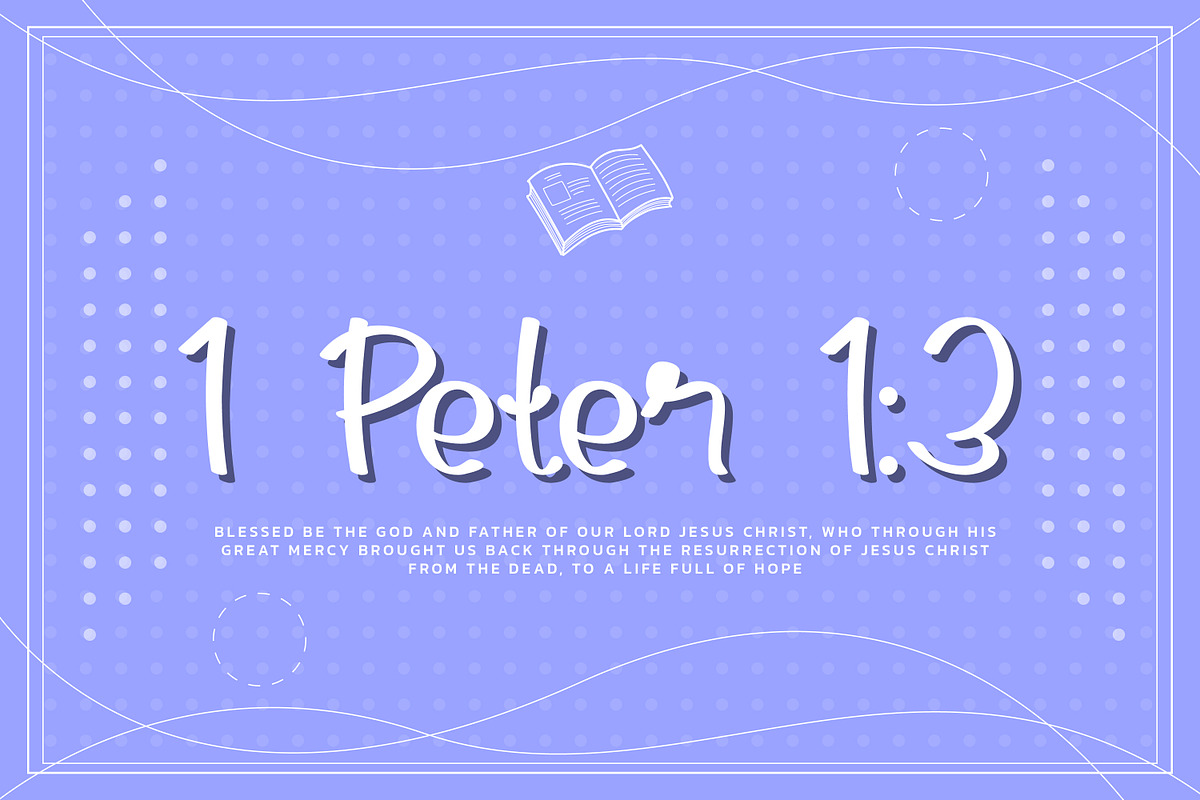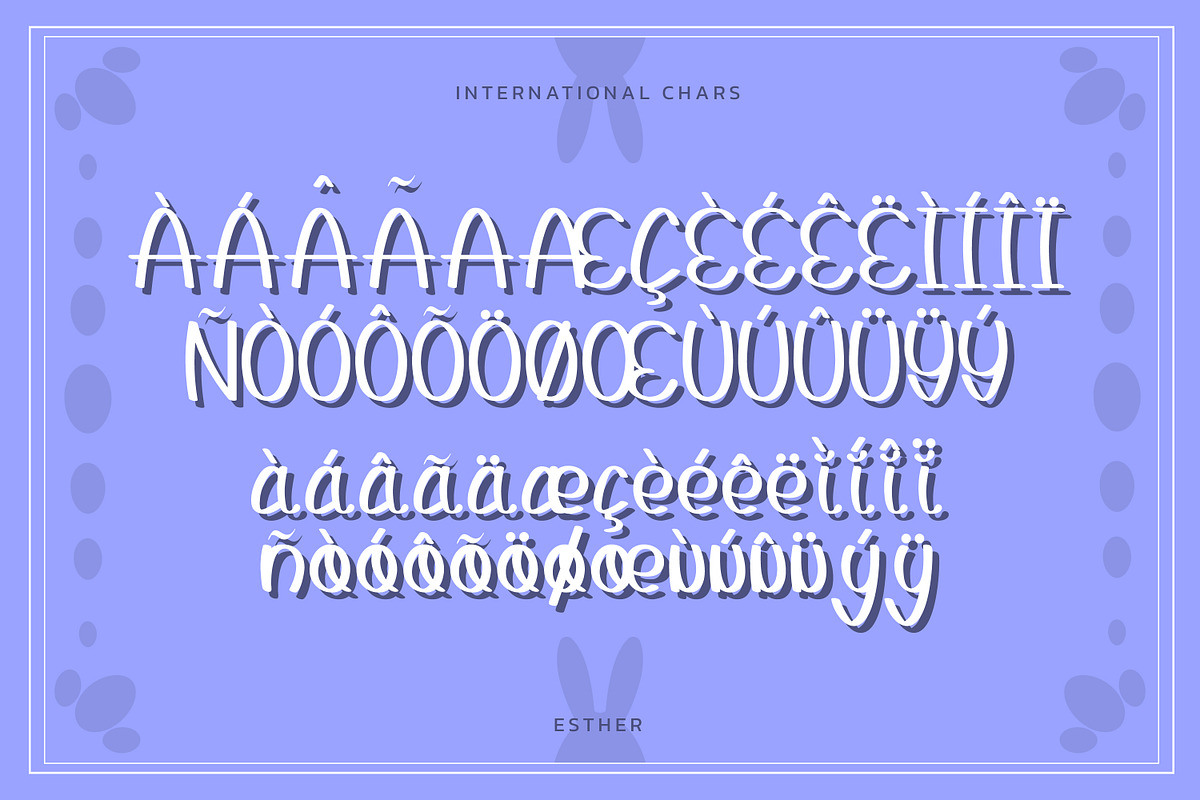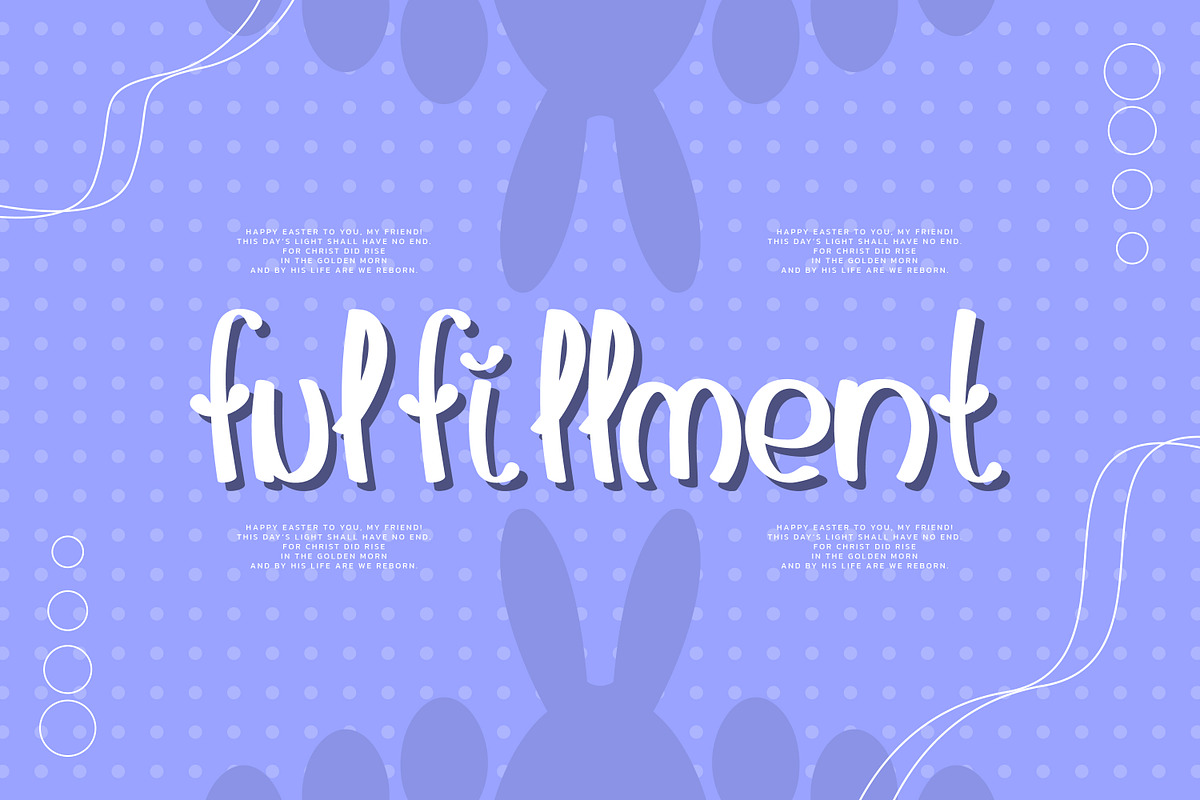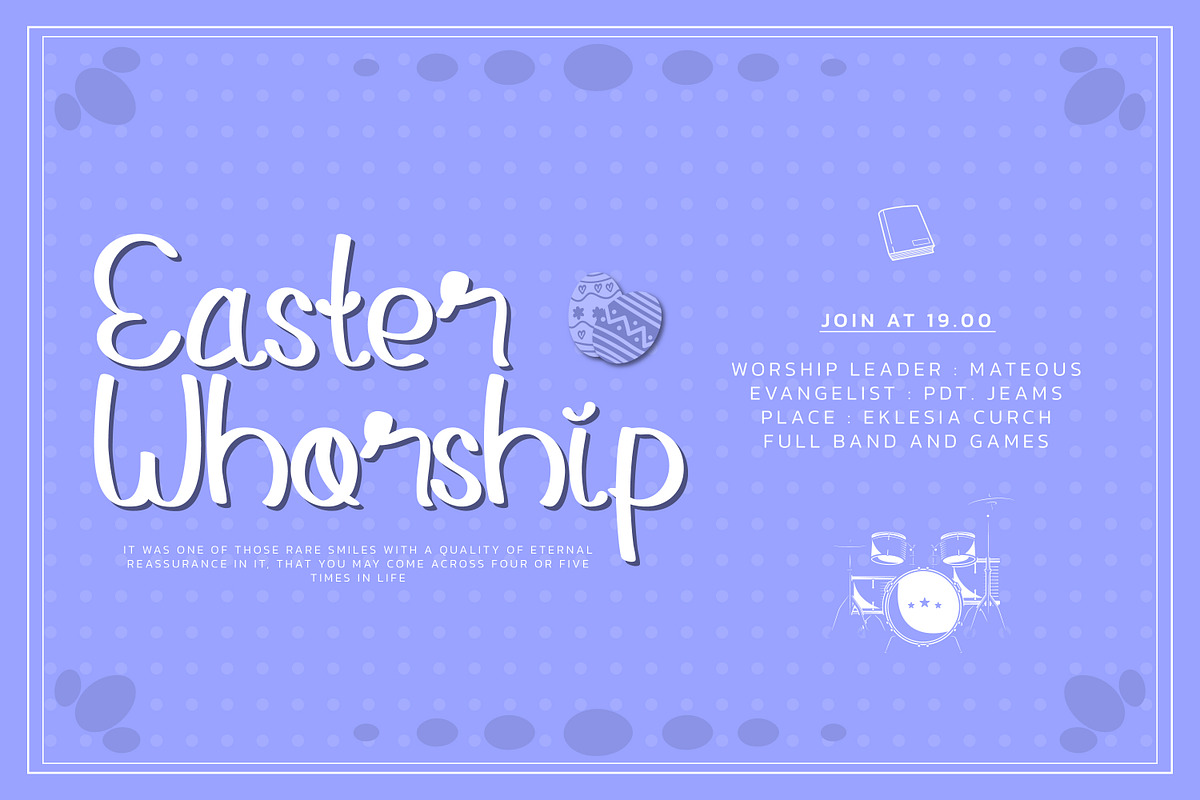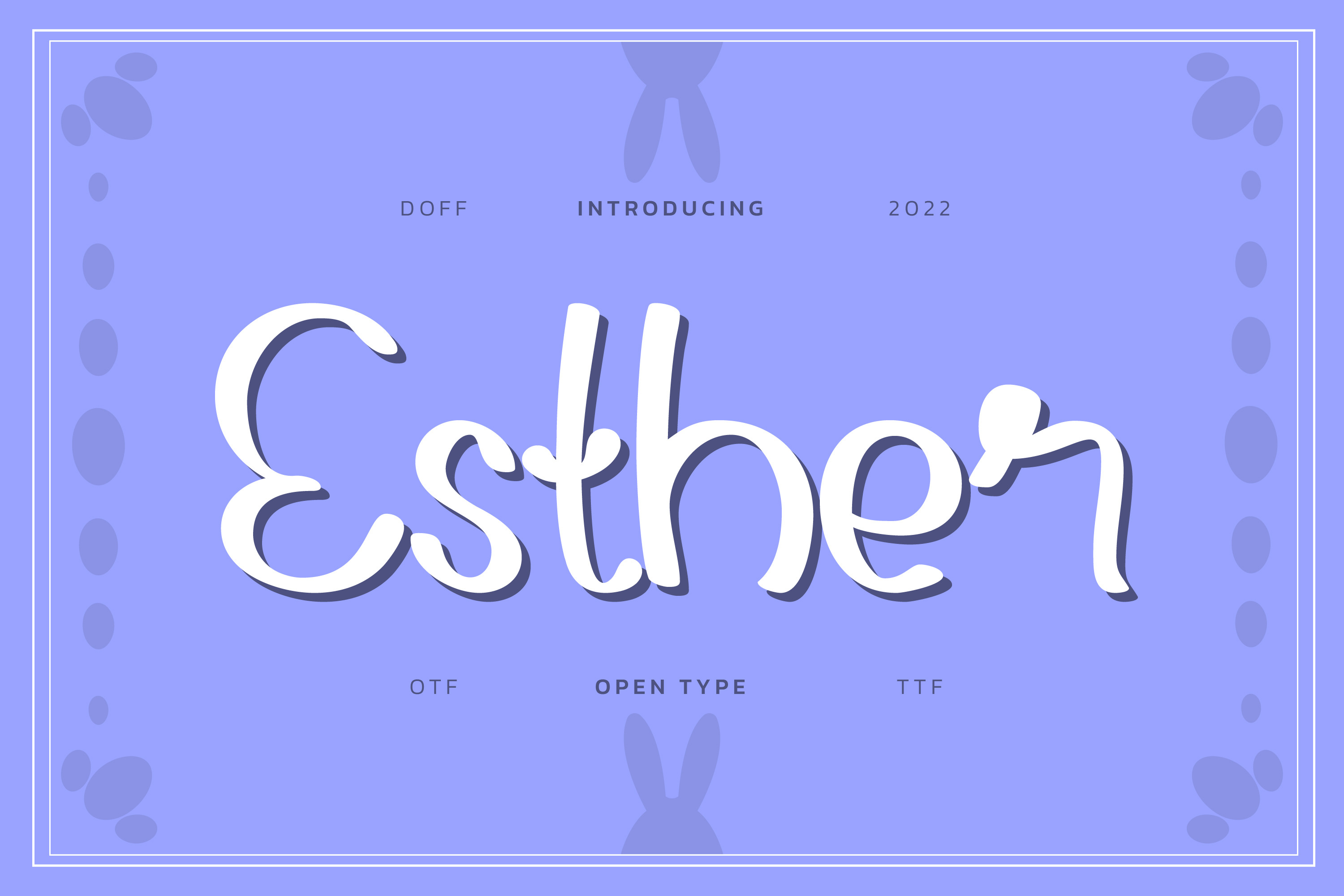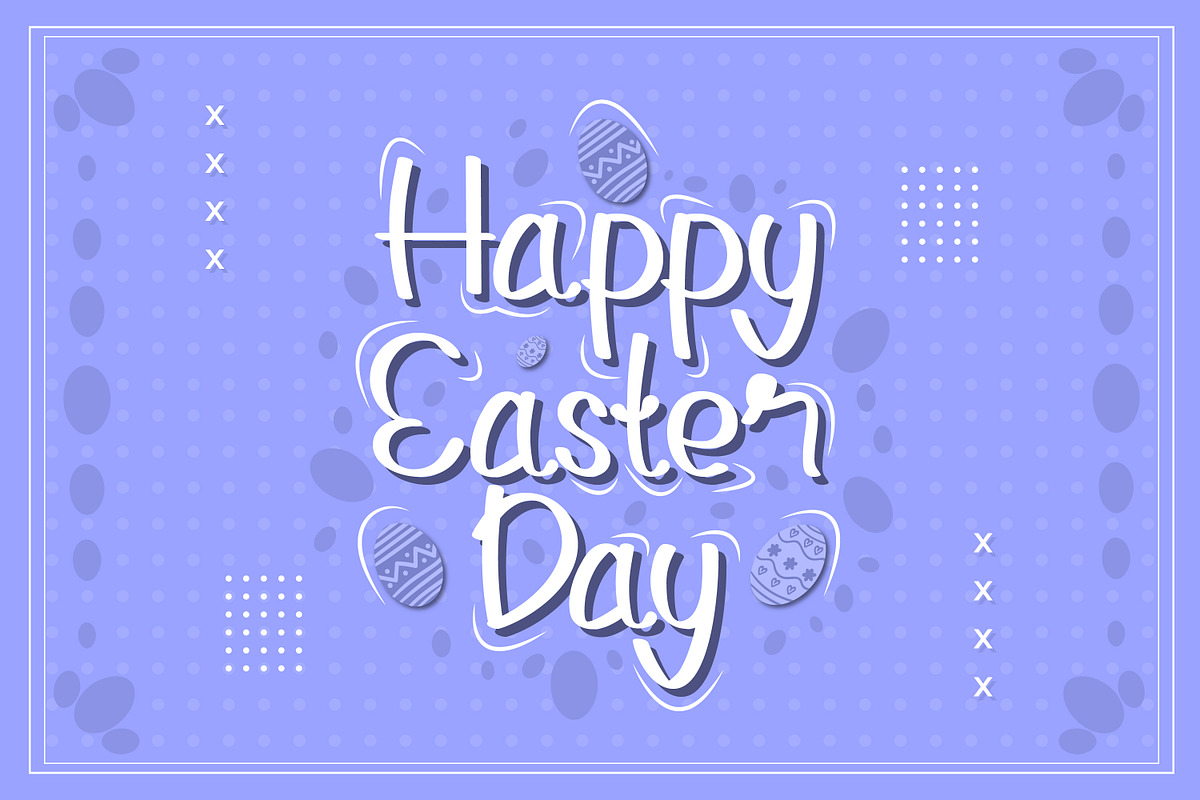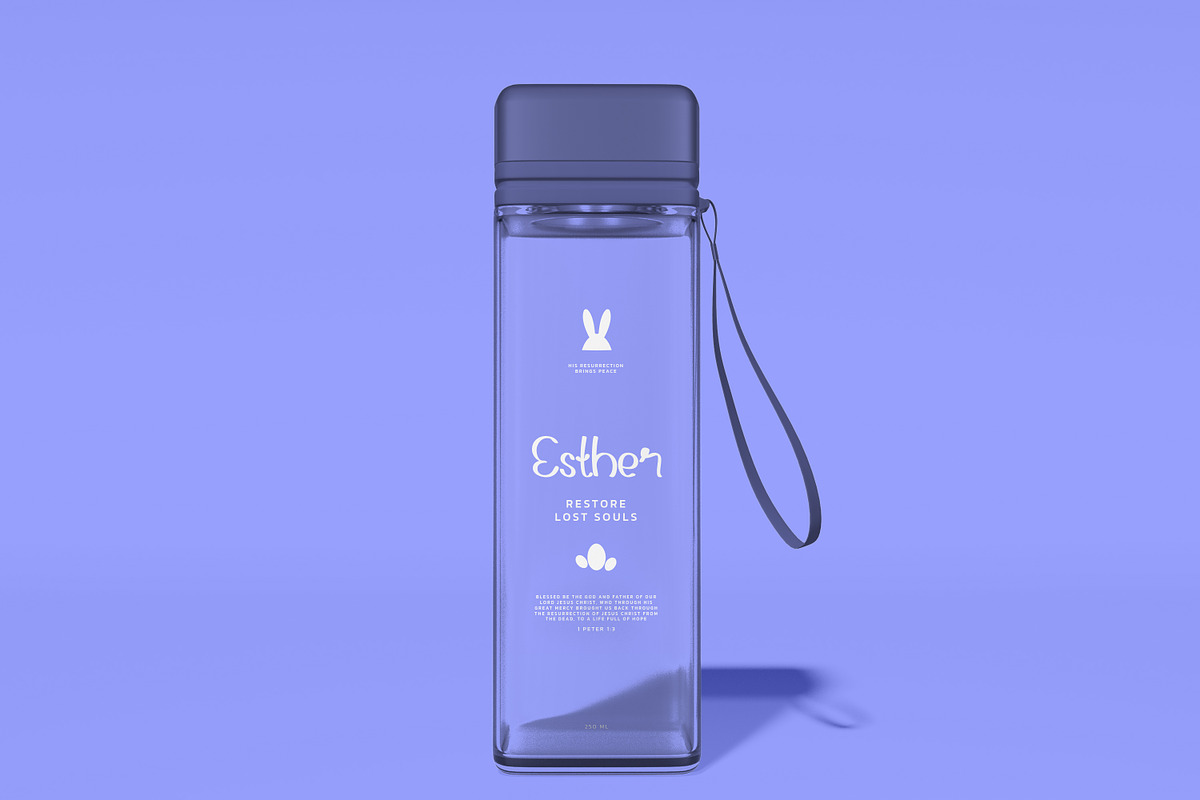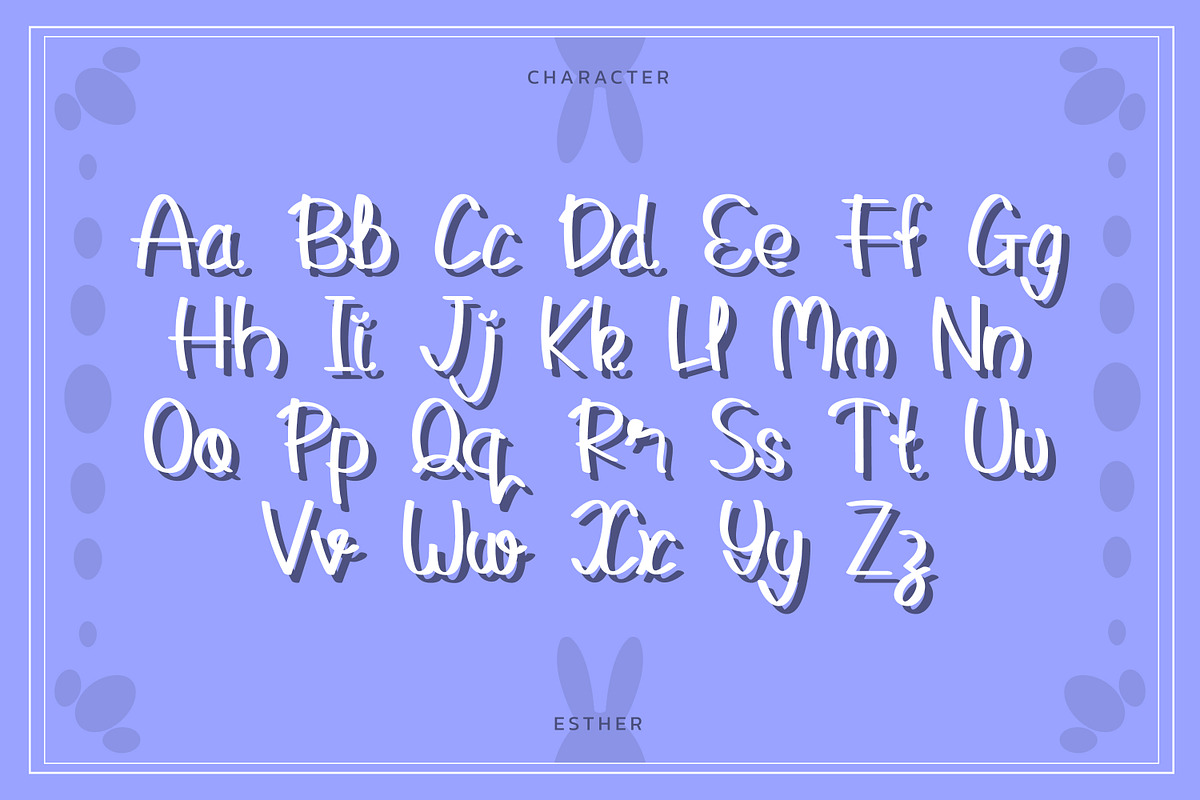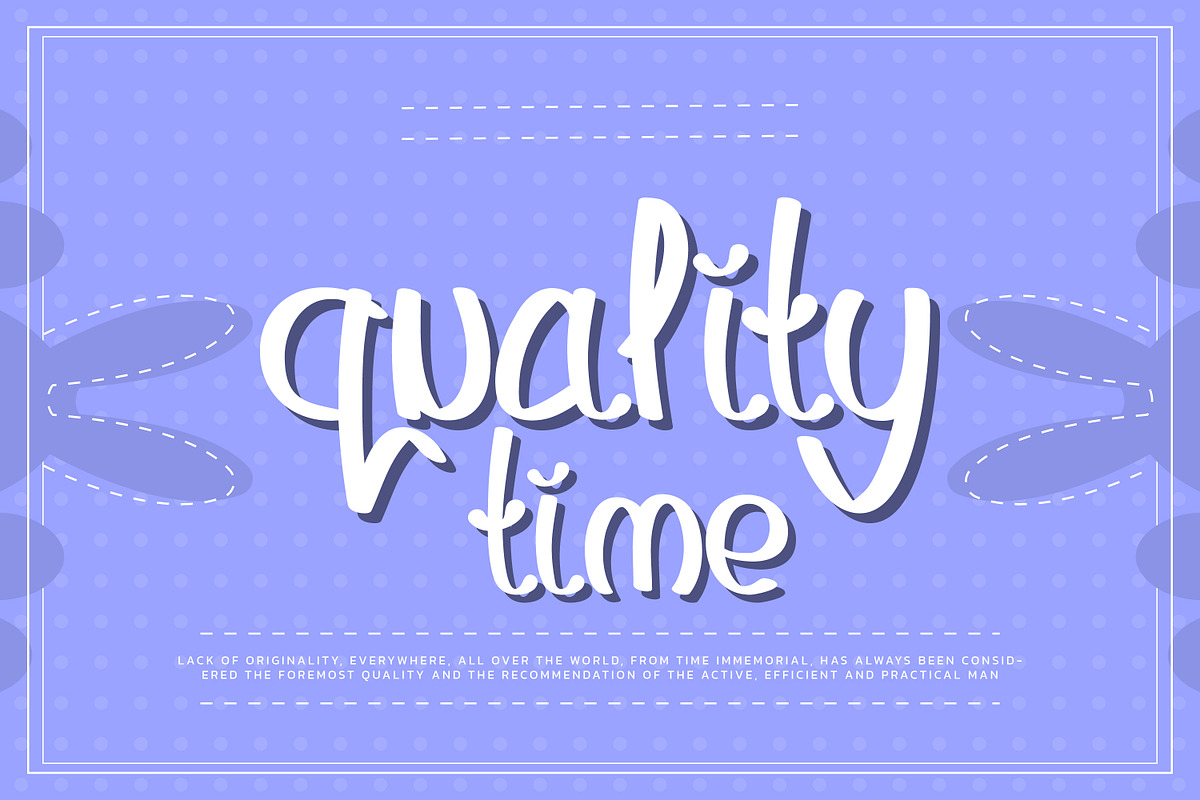
Esther Friendly Display Font
Esther is a cute and friendly display font. Take your kid-friendly designs to the next level with this captivating font! Use it to create unique t-shirt designs, baby onesies, nursery decorations, digital designs, cards, and many more.
- OpenType Features (Stylistic Set)